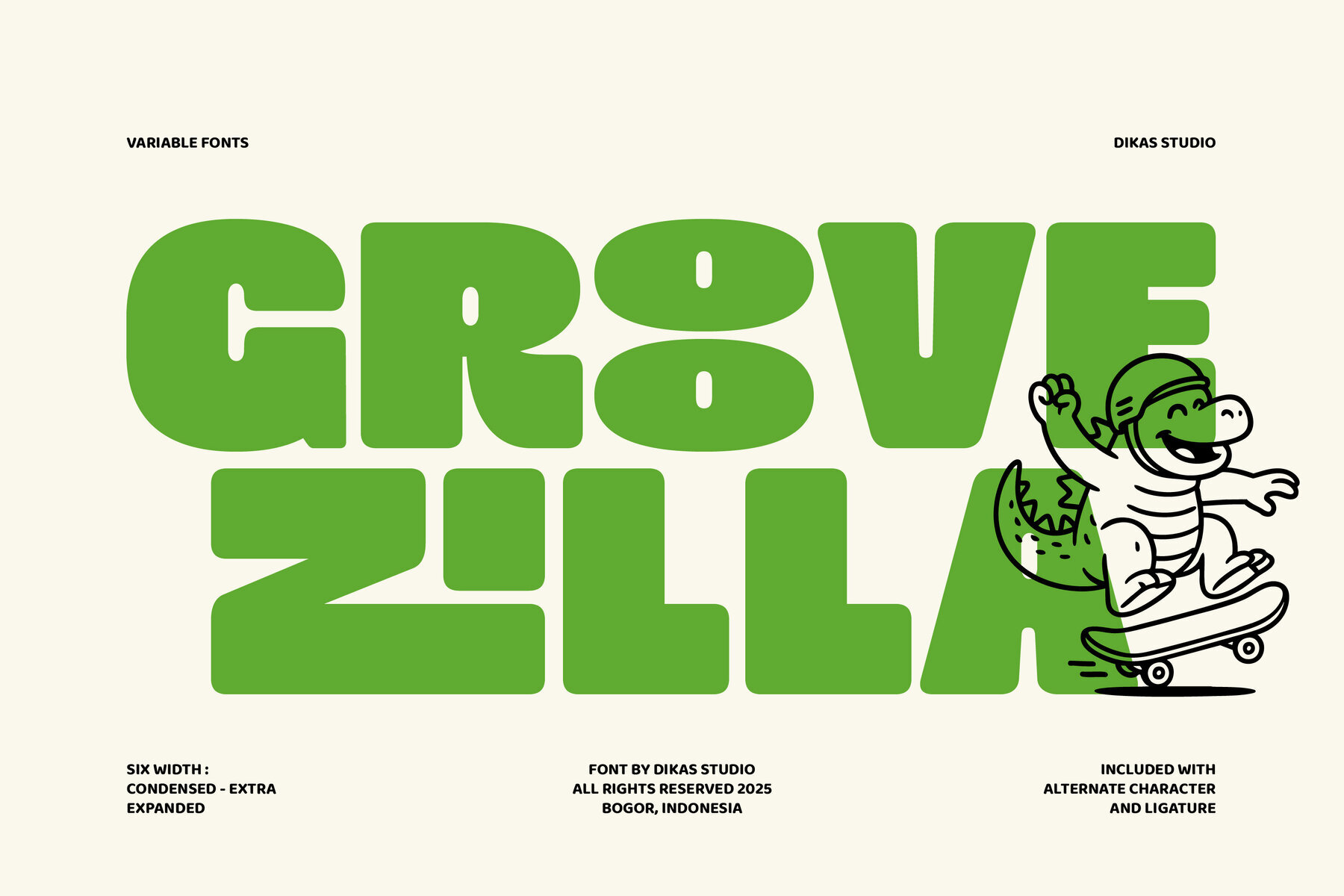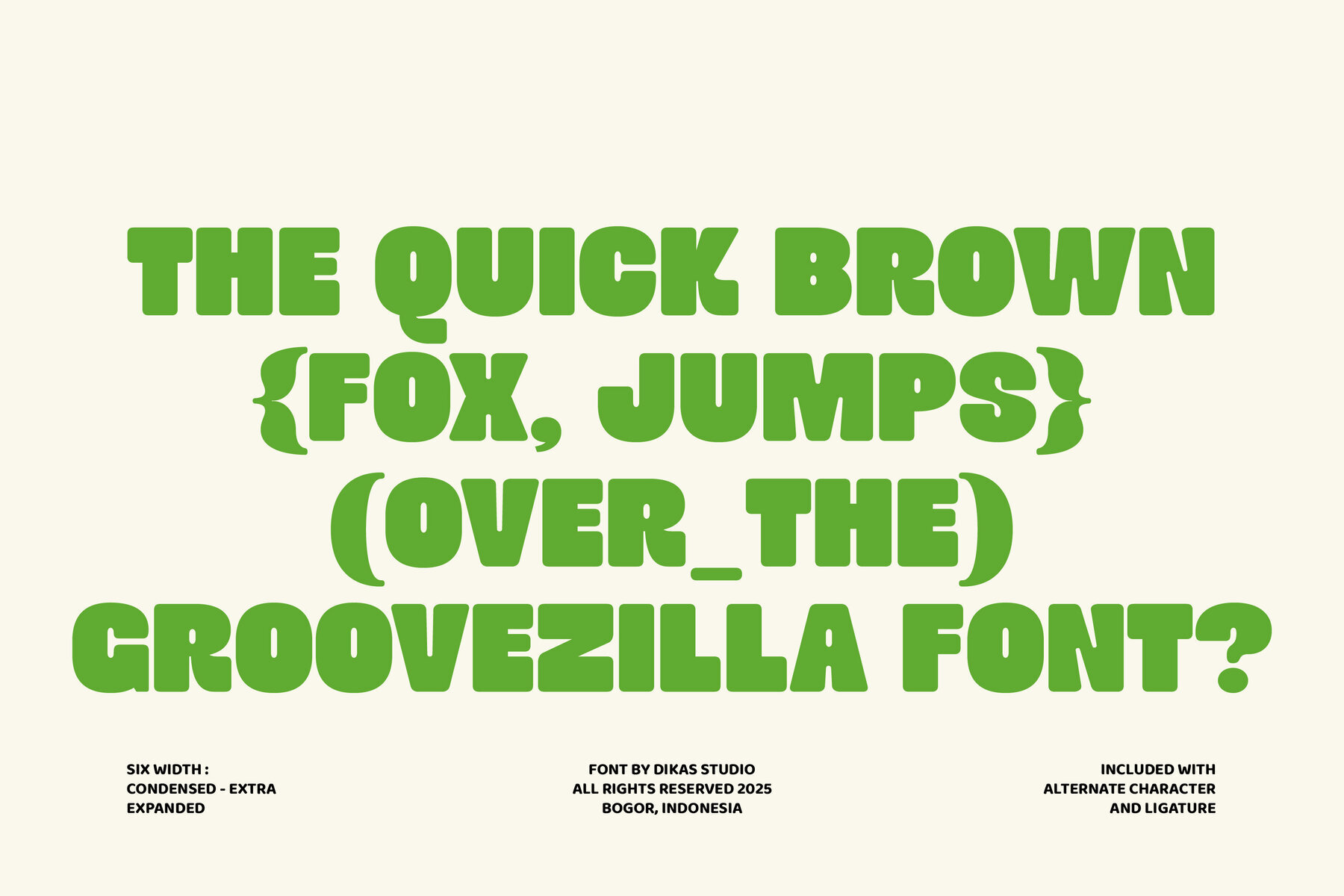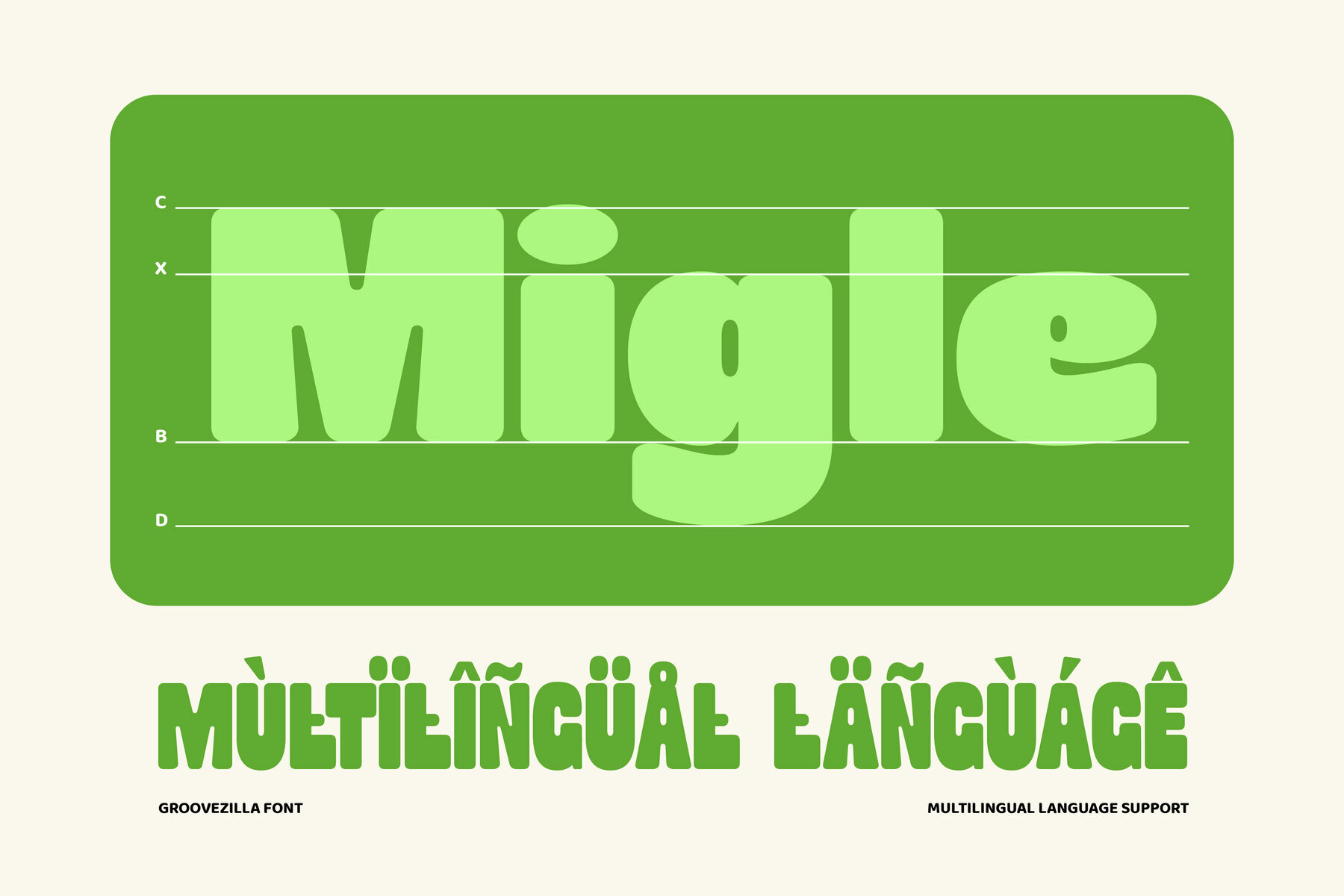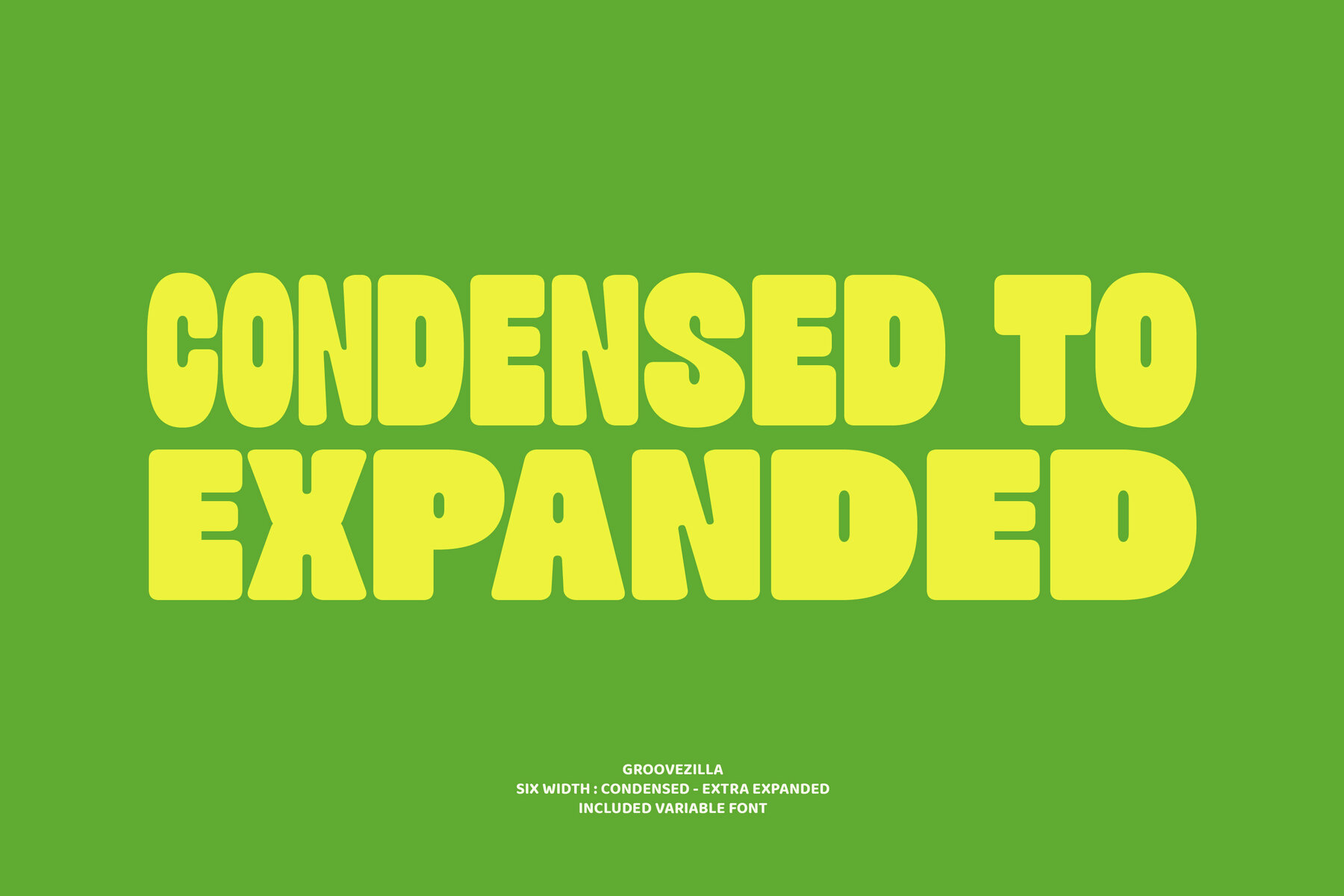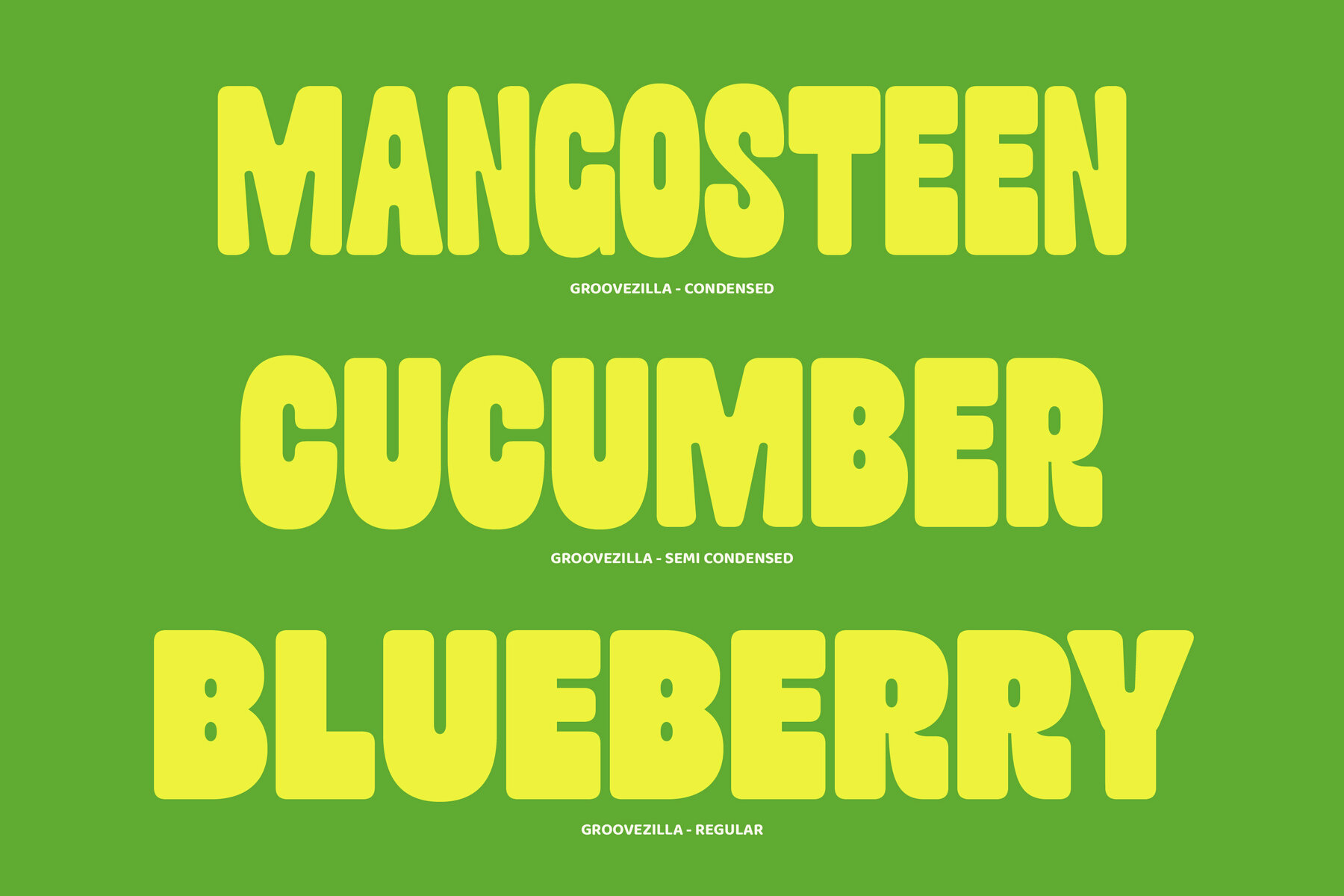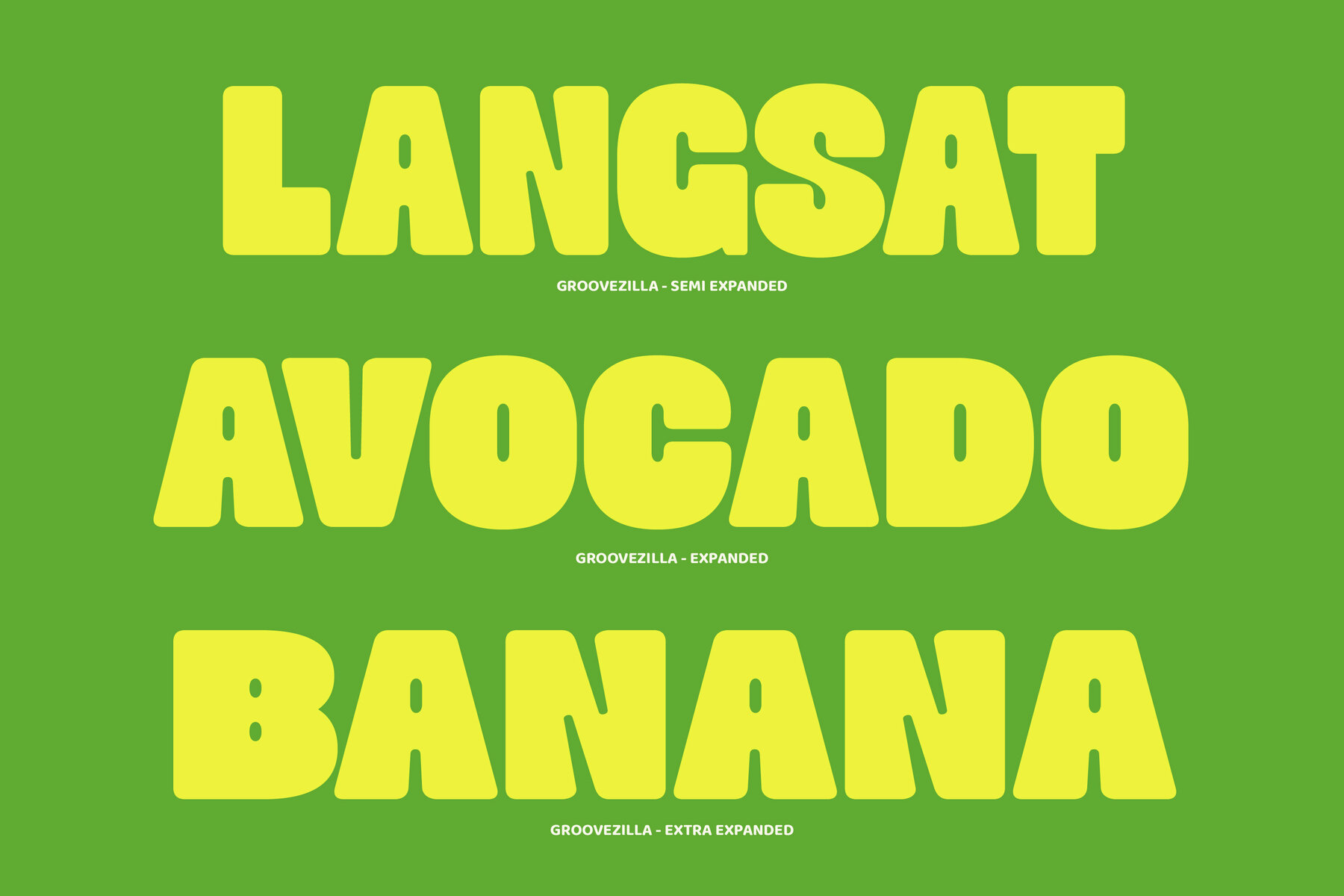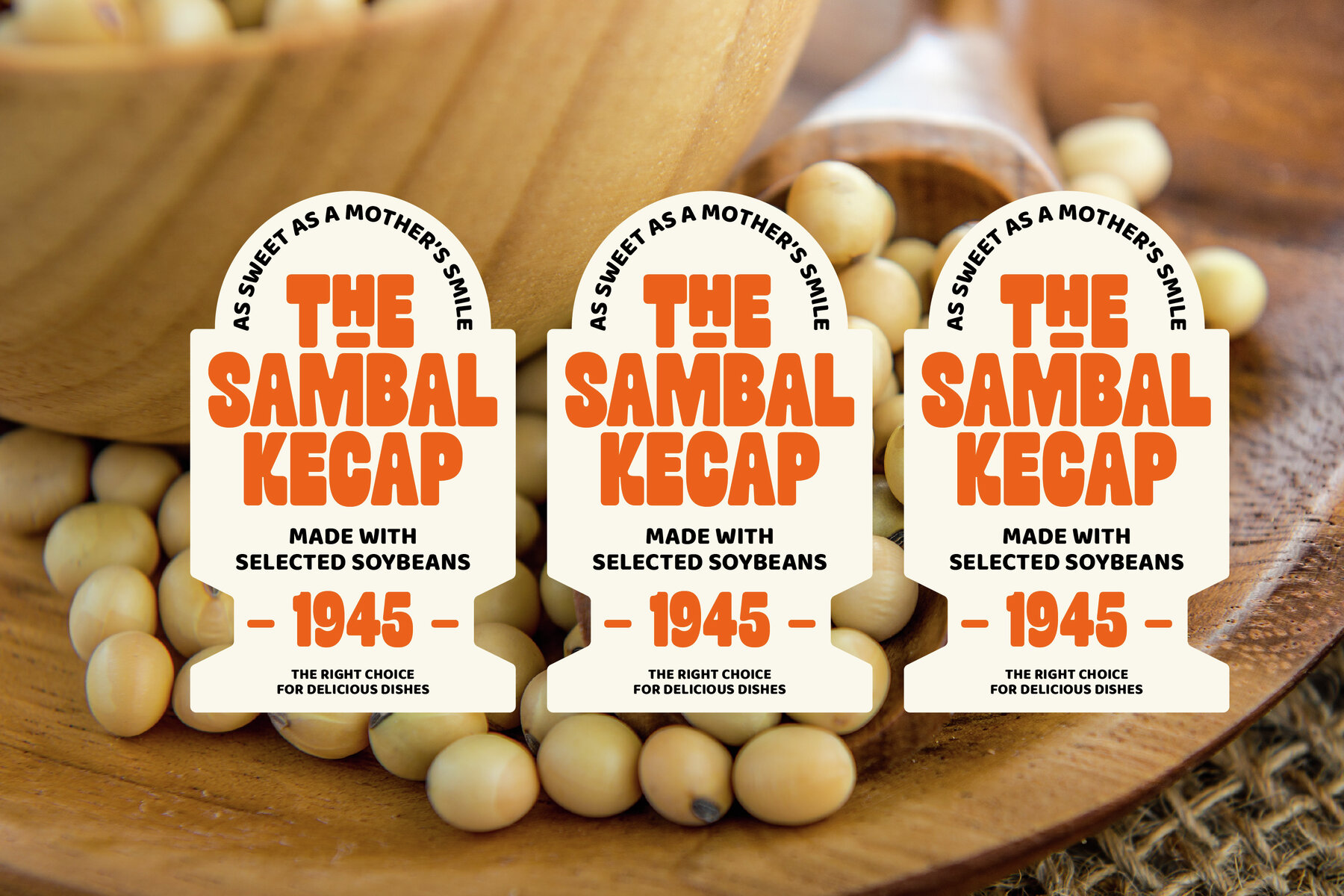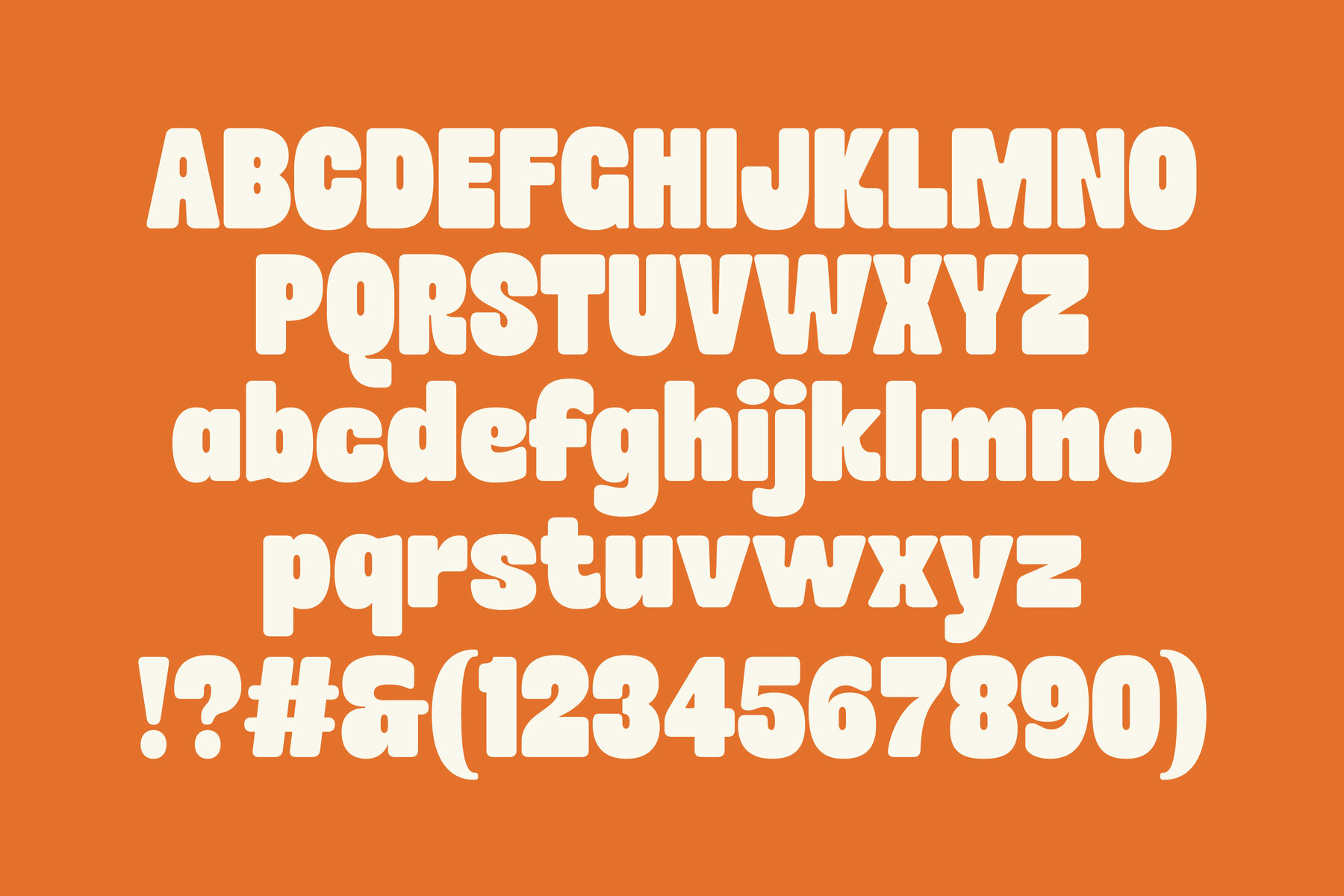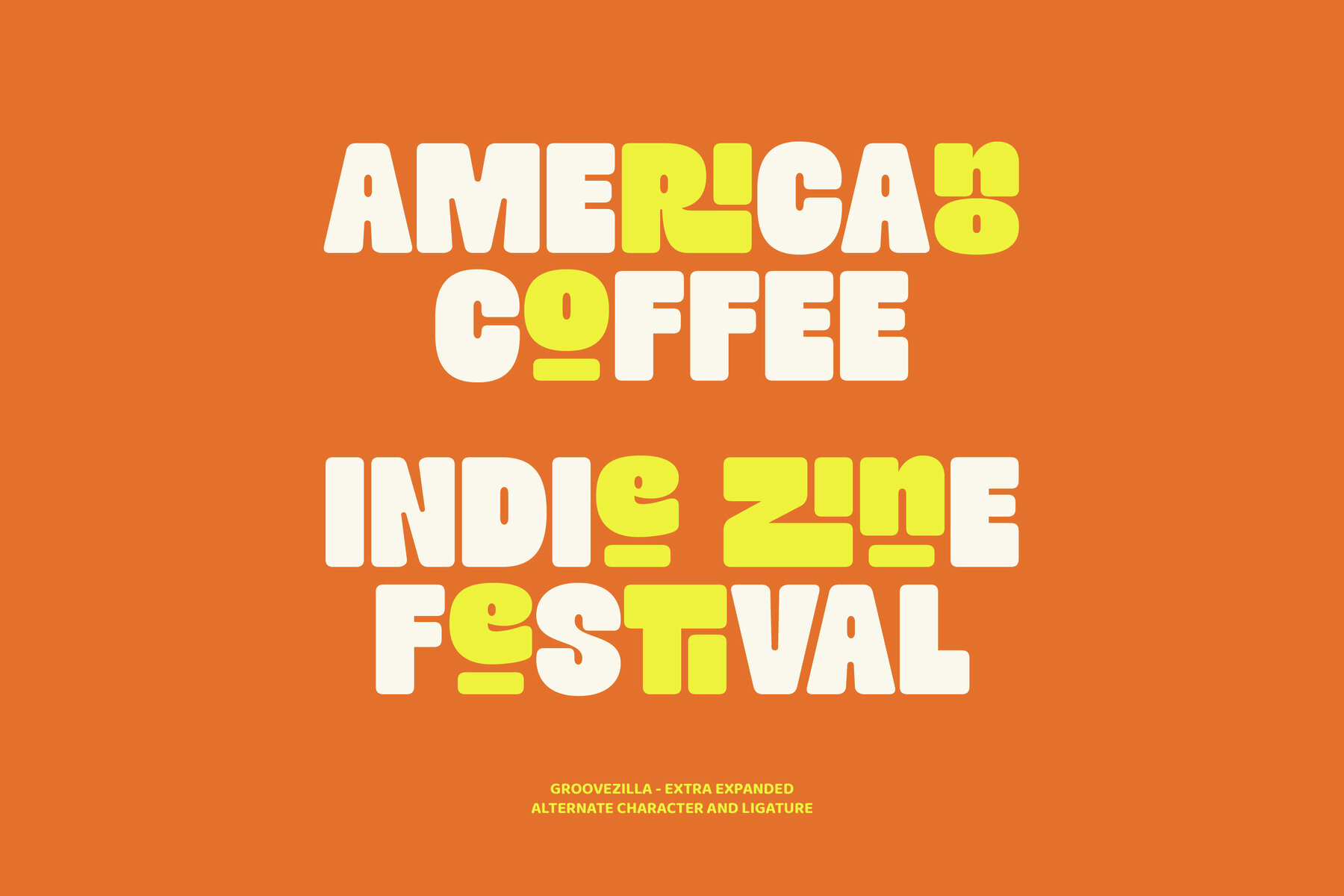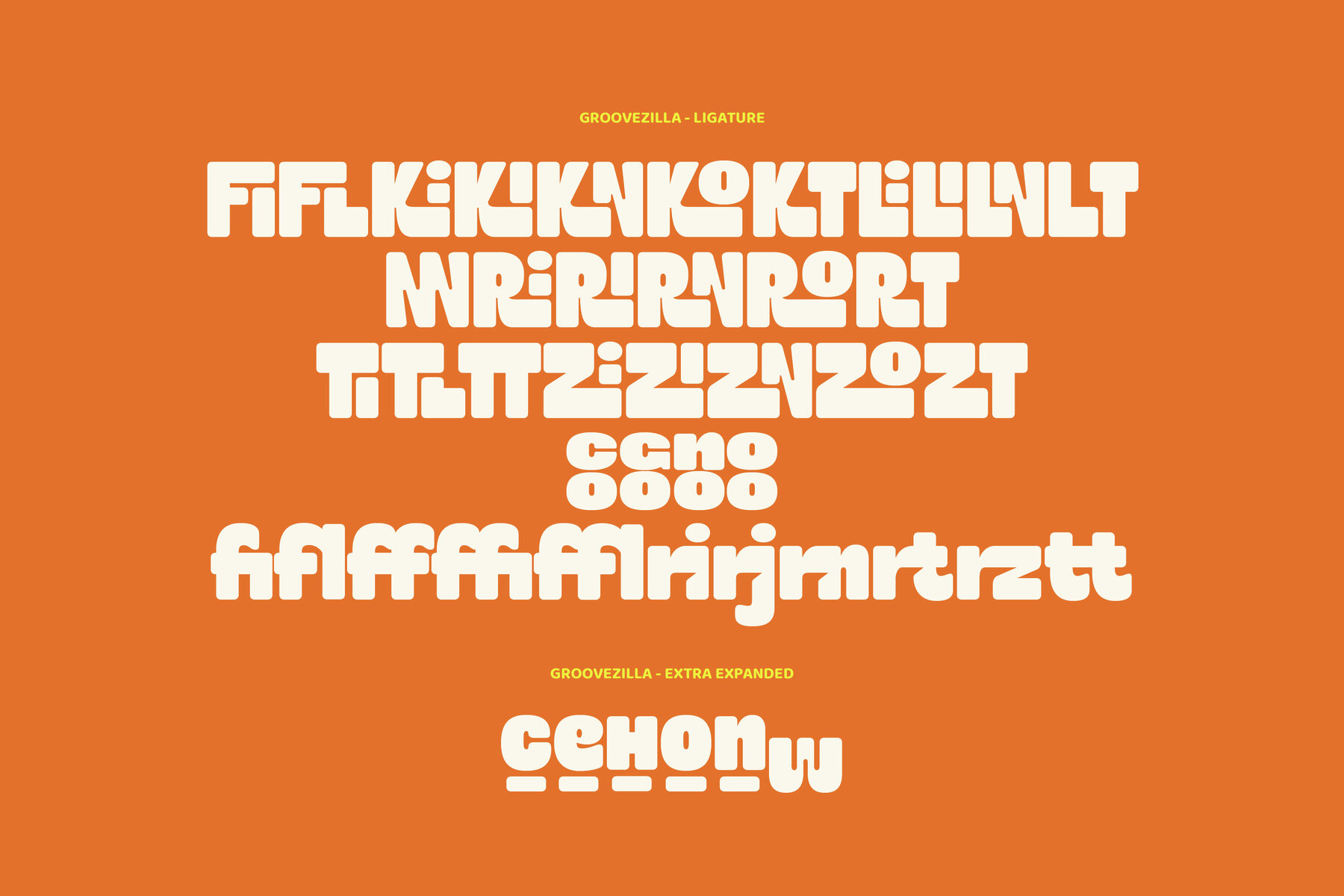
Groovezilla Font
Groovezilla injects any project with vibrant energy and distinctive character. With its soft edges and playful personality, this typeface evokes the funky spirit of vintage aesthetics, making it an ideal choice for designs that demand attention and flair. Embrace the versatility of Groovezilla, available in six width styles ranging from Condensed to Extra Expanded. The inclusion of alternate characters and ligatures offers creative freedom, enabling personalized typography that stands out with confidence. FeaturesGroovezilla: A Retro Bold Font with Flair